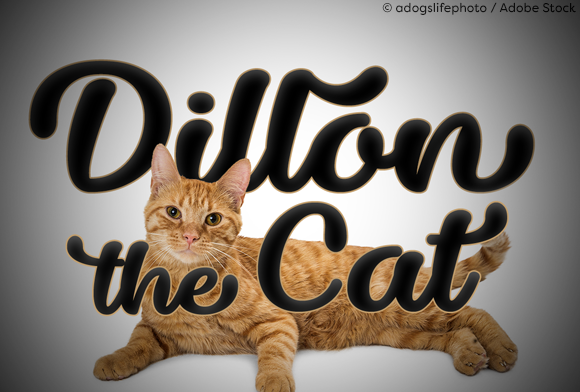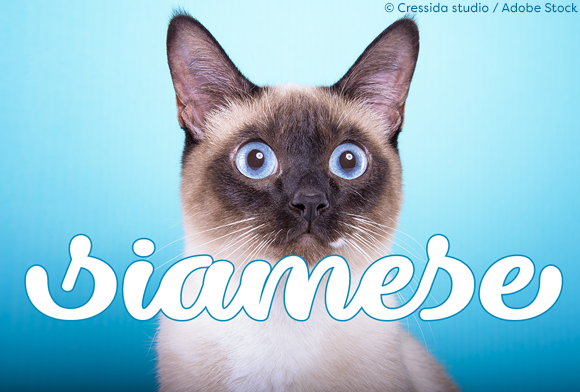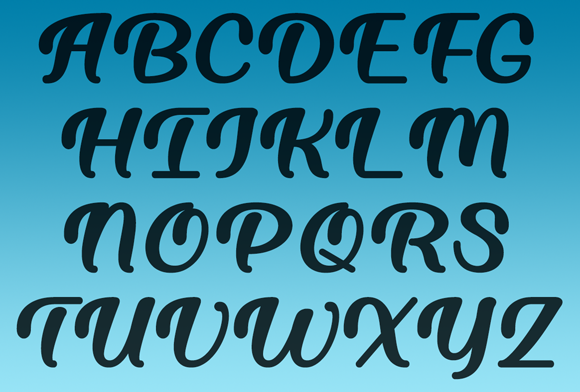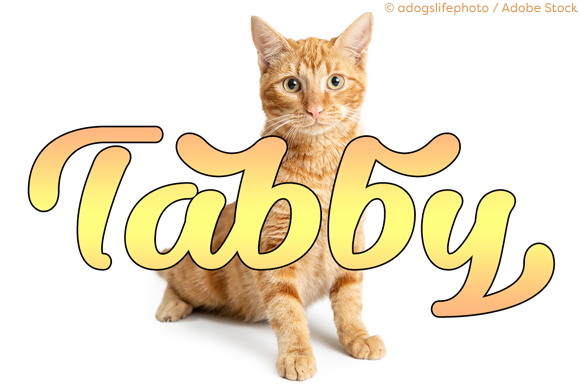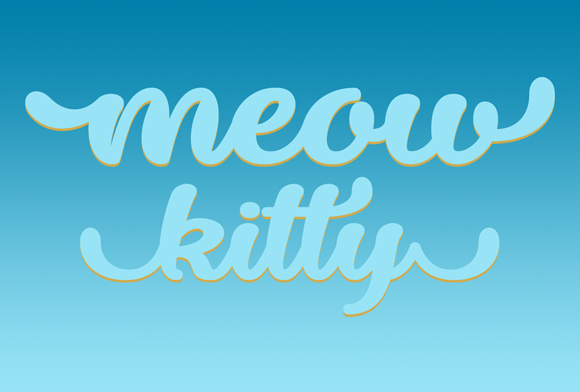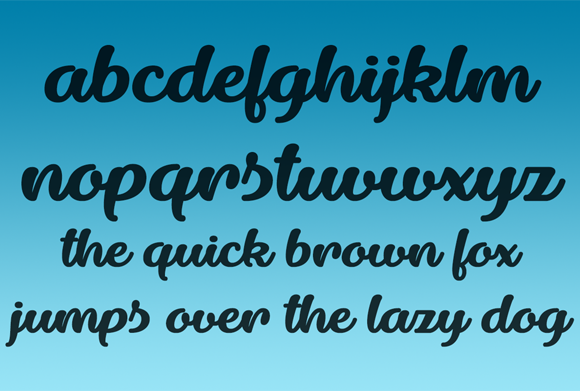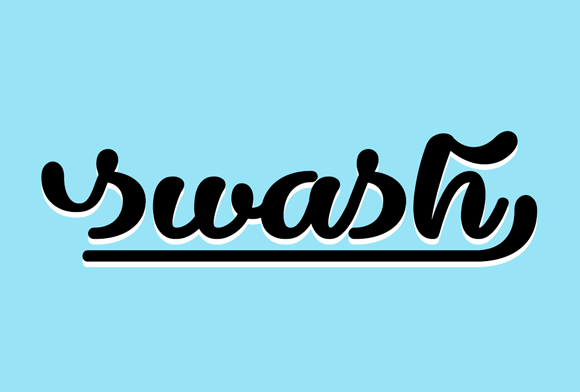
Dillon the Cat Font
Dillon the Cat is a stylish typeface that is purrrrfect for a variety of projects, including logos, product labels, invitations and so much more! Includes underline several swashes and alternates to add extra flair!